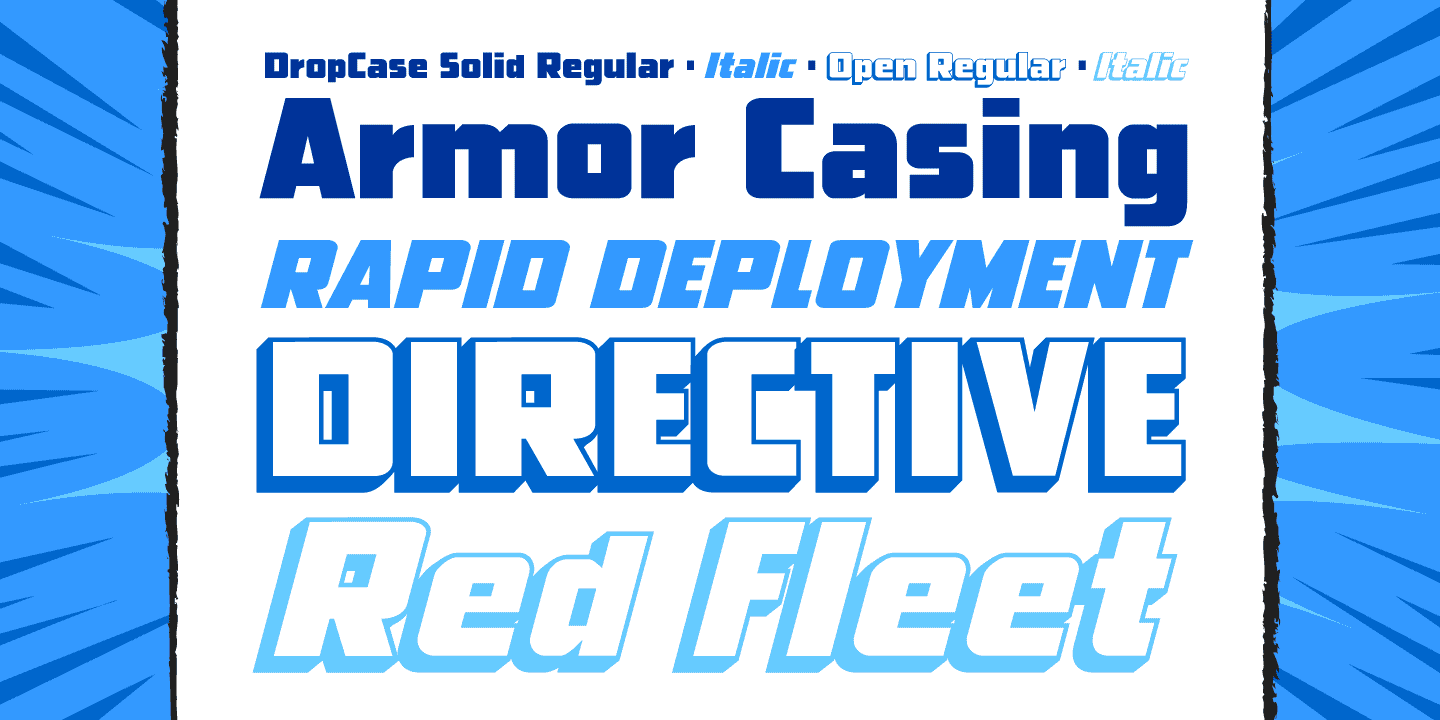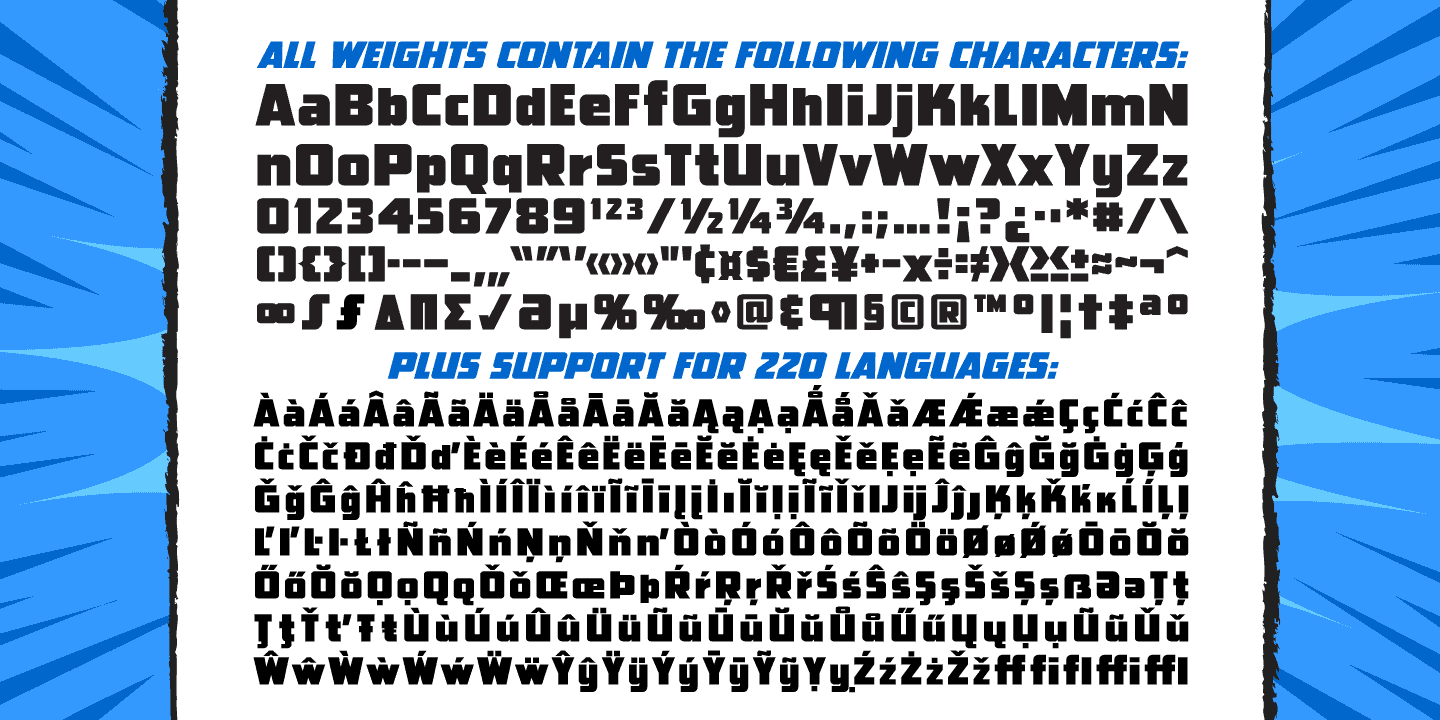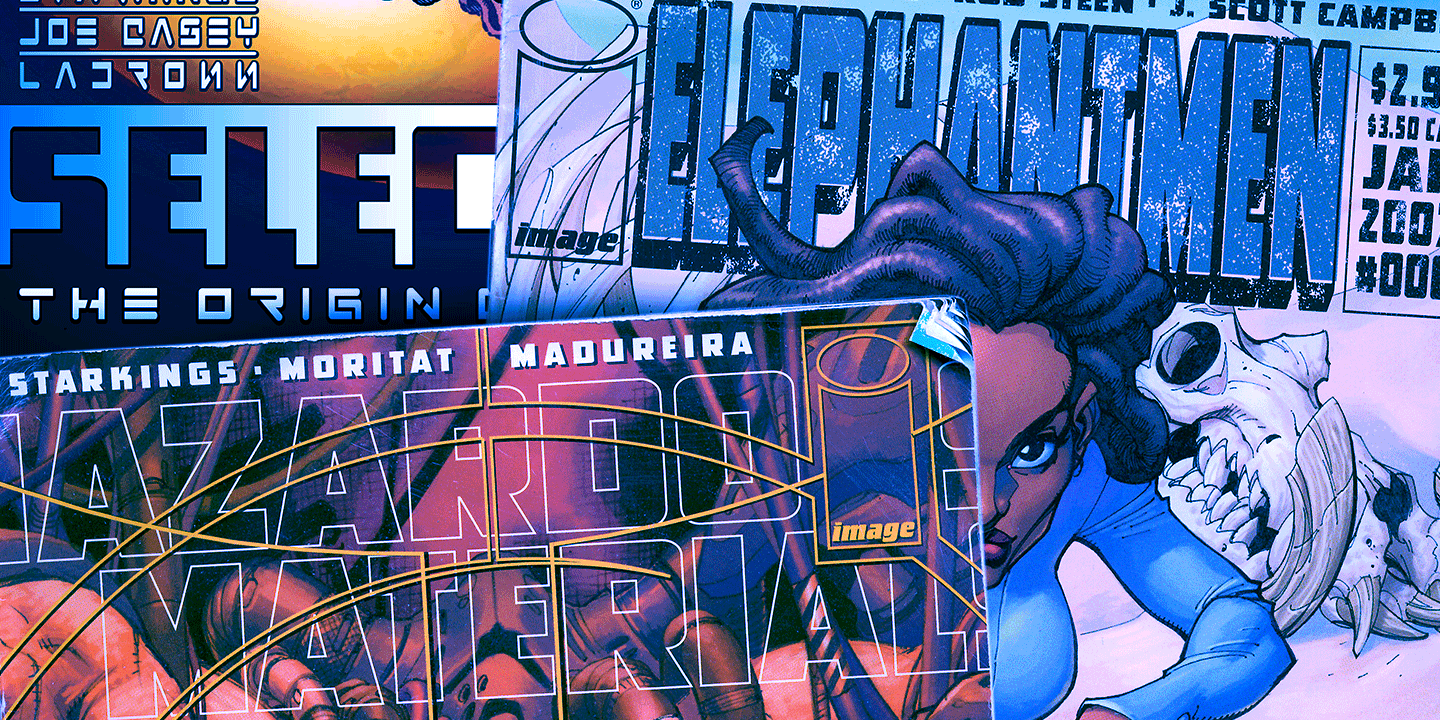
About Drop Case
As seen in ELEPHANTMEN and THE RED STAR, his solid headline font is supplied to you with exterior protective armor casing. Rapid Deployment of DropCase from high altitudes is acceptable only in accordance with the directives of the Red Fleet.